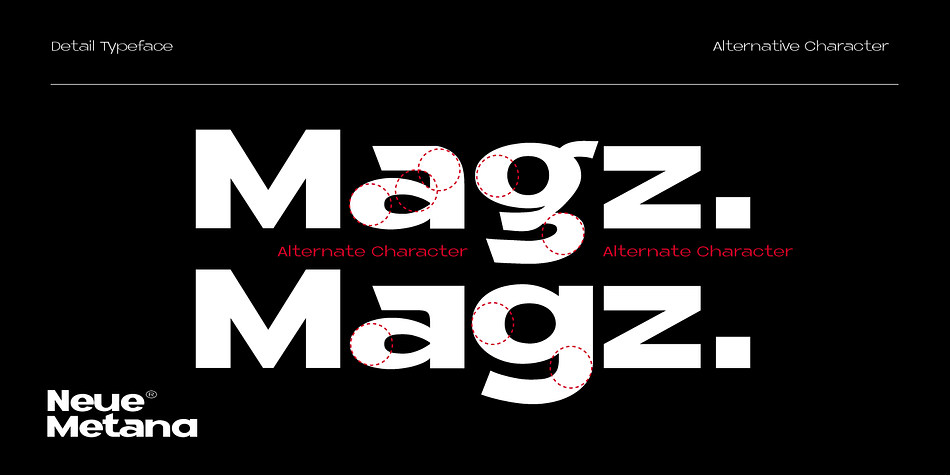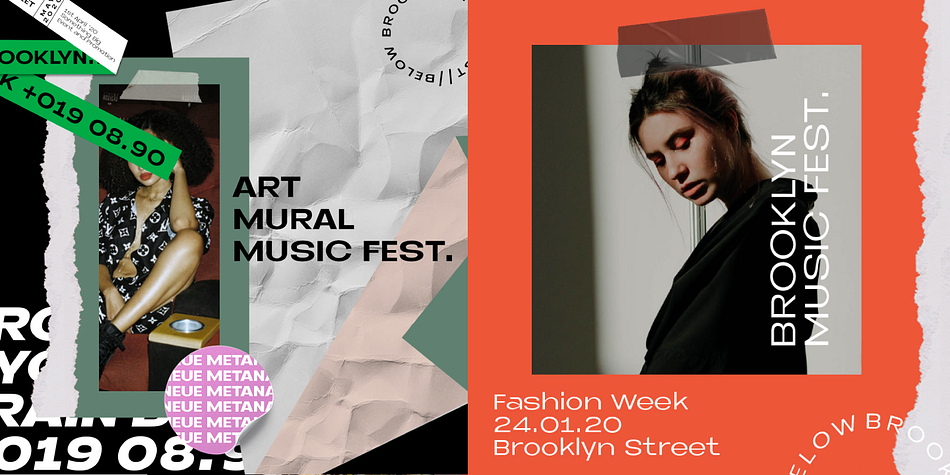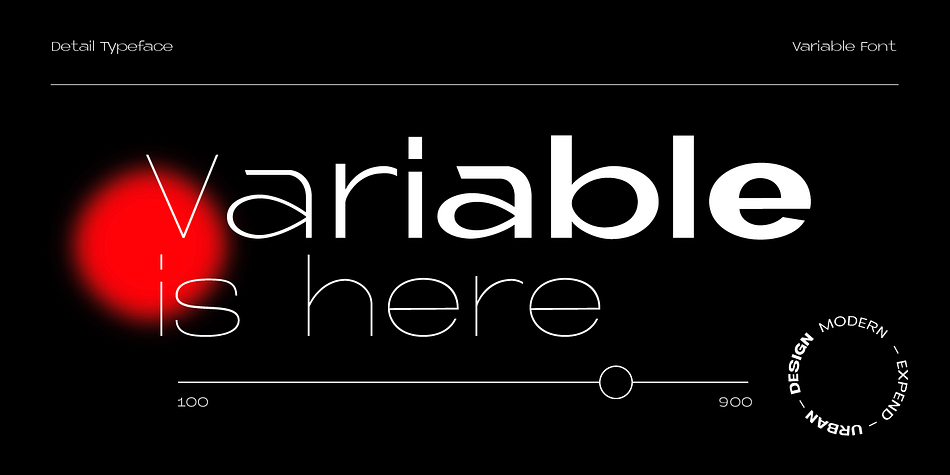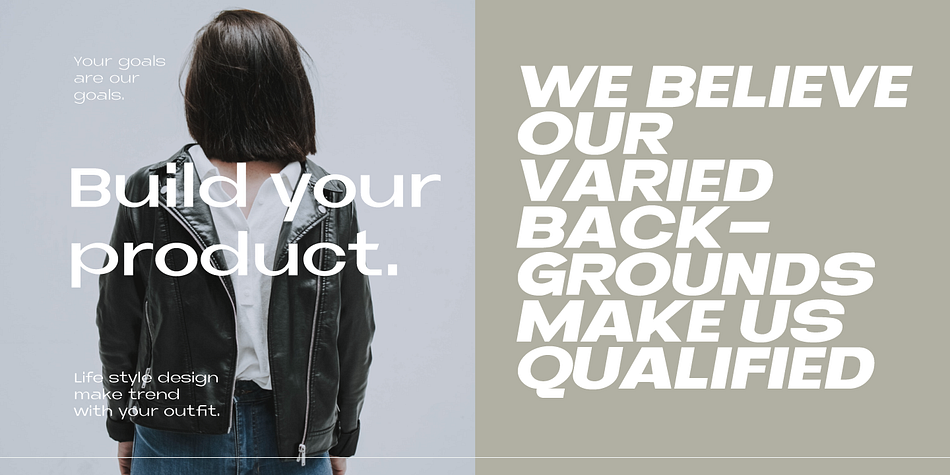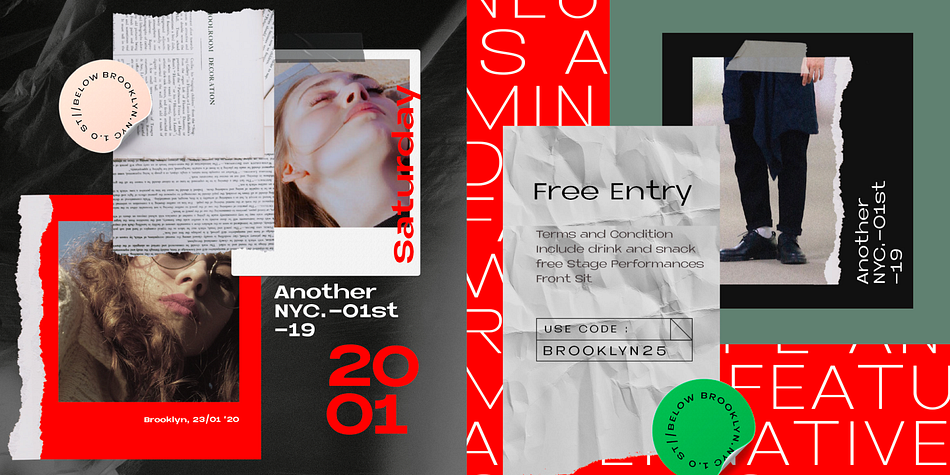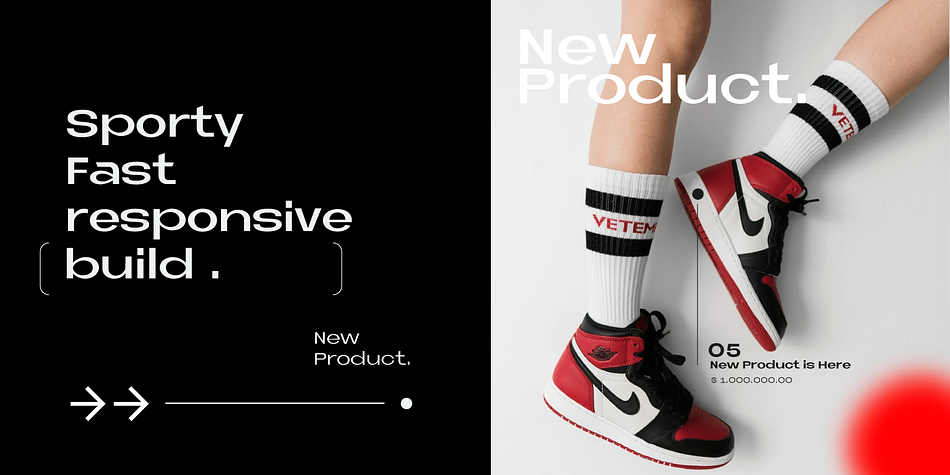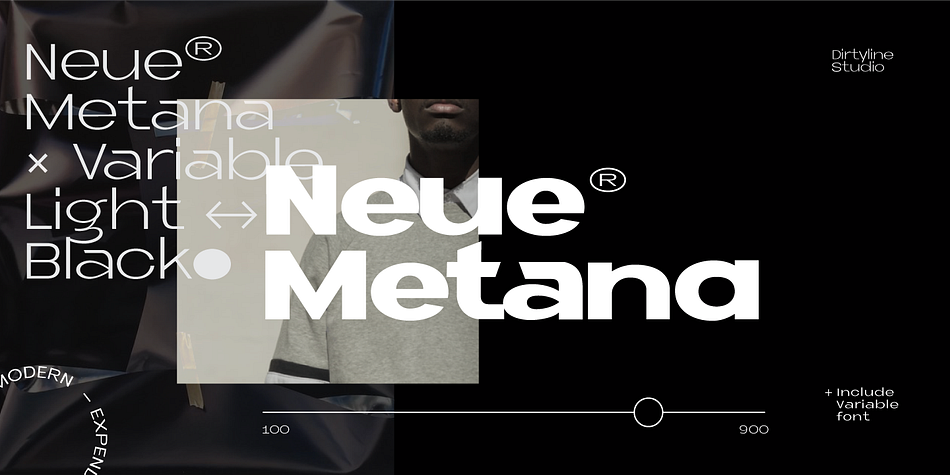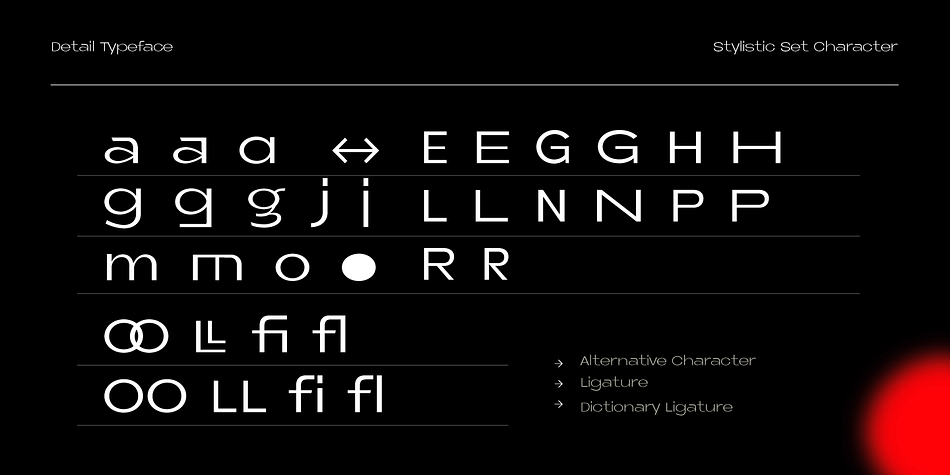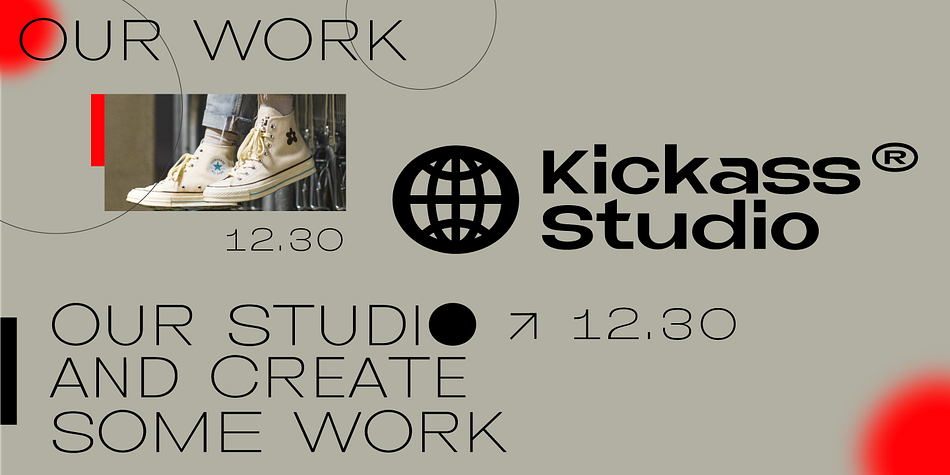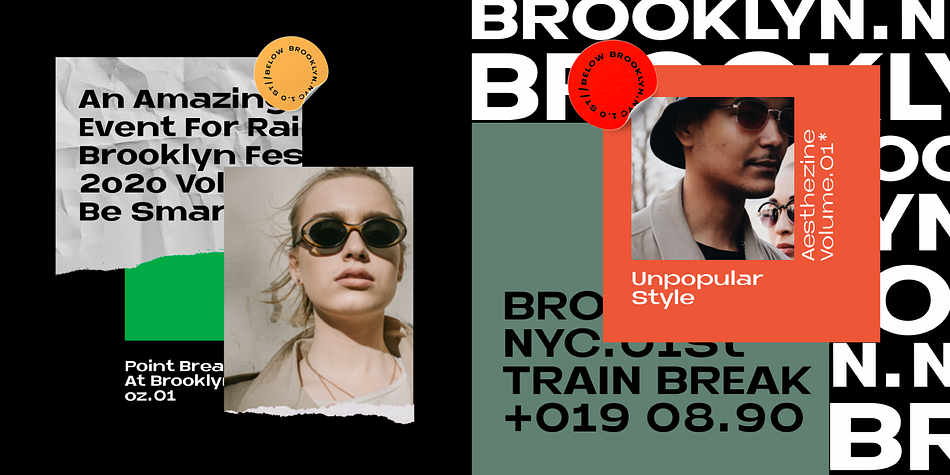
Designed by Hendra Maulia, Neue Metana is a sans serif font family. This typeface has twenty styles and was published by Dirtyline Studio.
Neue Metana is a modern minimalist design typeface with geometric type and more feature alternative character. there include some ligature. It is inspired by hype and urban design - a font suited for lifestyle with trend design. It was designed to be versatile, to blend in your design with light through bold weights add touch a lot of personality.